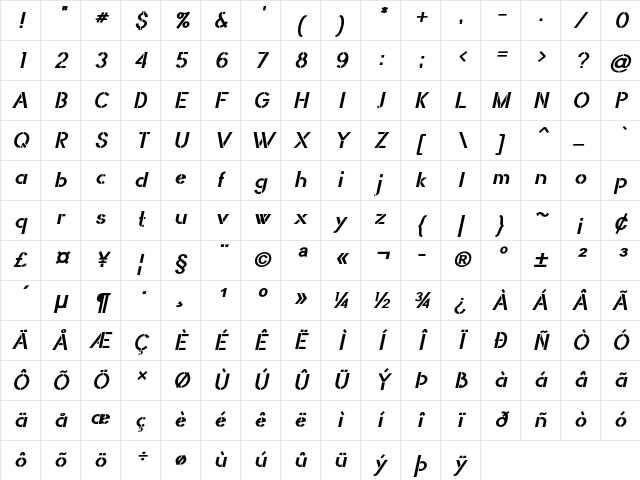
Pellingham Bold Italic Free Font
Pellingham Bold Italic
Complete Pellingham Bold Italic glyph index. Displaying only characters natively supported by Pellingham Bold Italic font.
Design Context for Pellingham
Pellingham is a composed and adaptable typeface that performs quietly and consistently across a wide range of design contexts. The slanted form adds forward momentum and visual energy. Its bold stroke weight gives it real presence on the page.
Pro Tip: Use Pellingham for emphasis, pull quotes, and subheadings where its slanted energy can add rhythm to the layout.